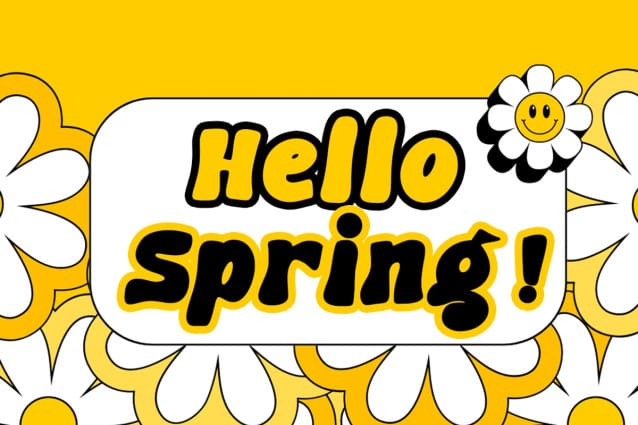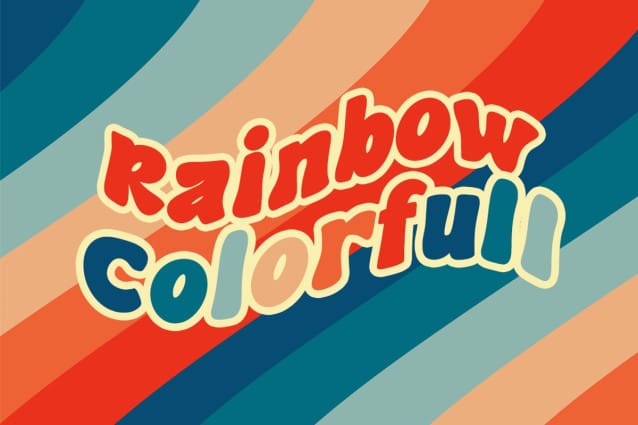
Groovy Lover Font
Groovy Lover Font, a dynamic and nostalgic font display that effortlessly blends casual elegance with retro vibes. Ideal for a spectrum of creative ventures, this versatile font can effortlessly enhance a logo’s personality or lend a distinct charm to product packaging. It’s perfect for creating captivating wedding invitations, impactful branding, bold headlines, or eye-catching signage.